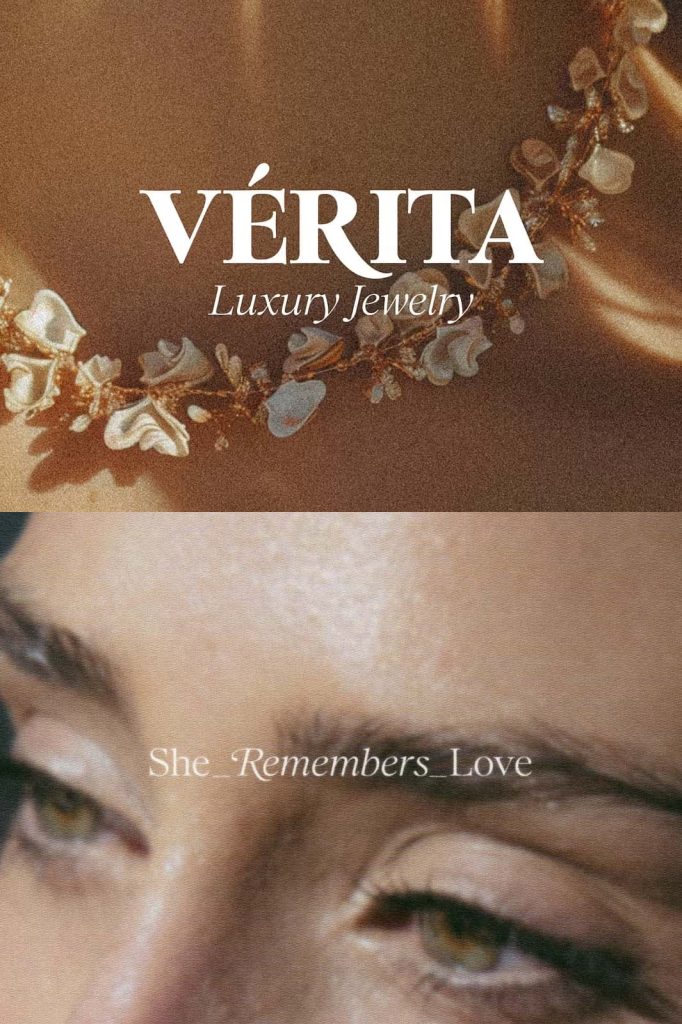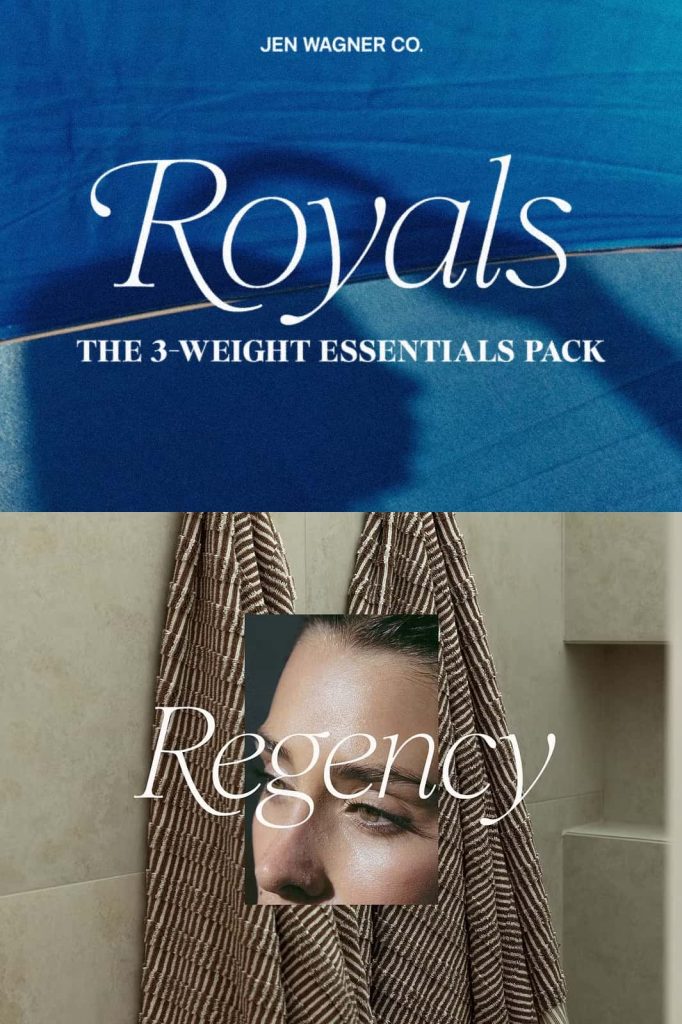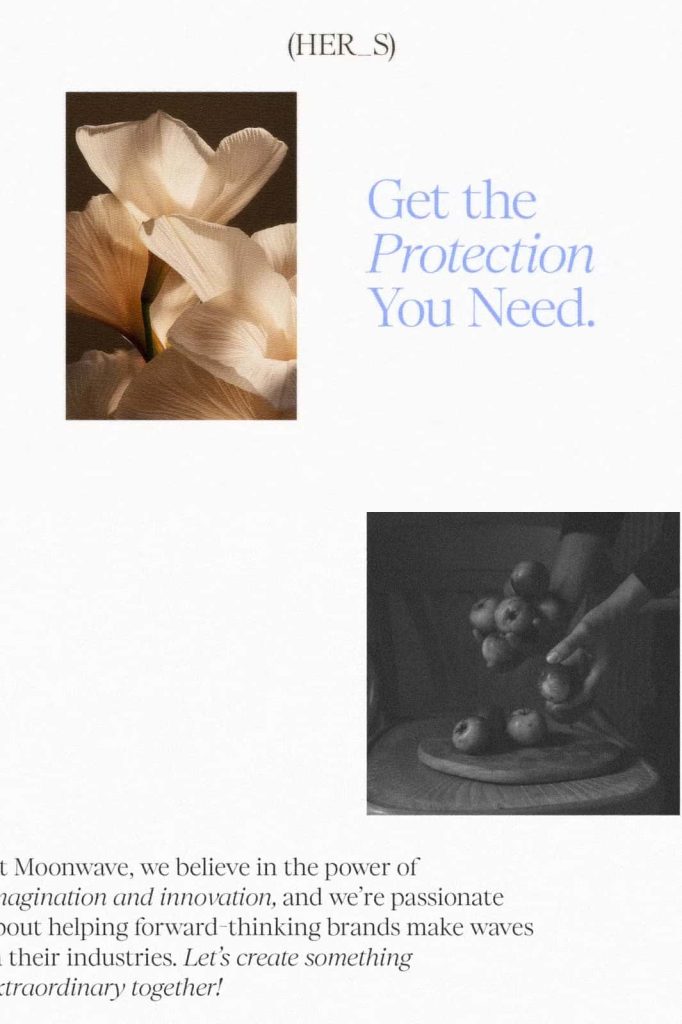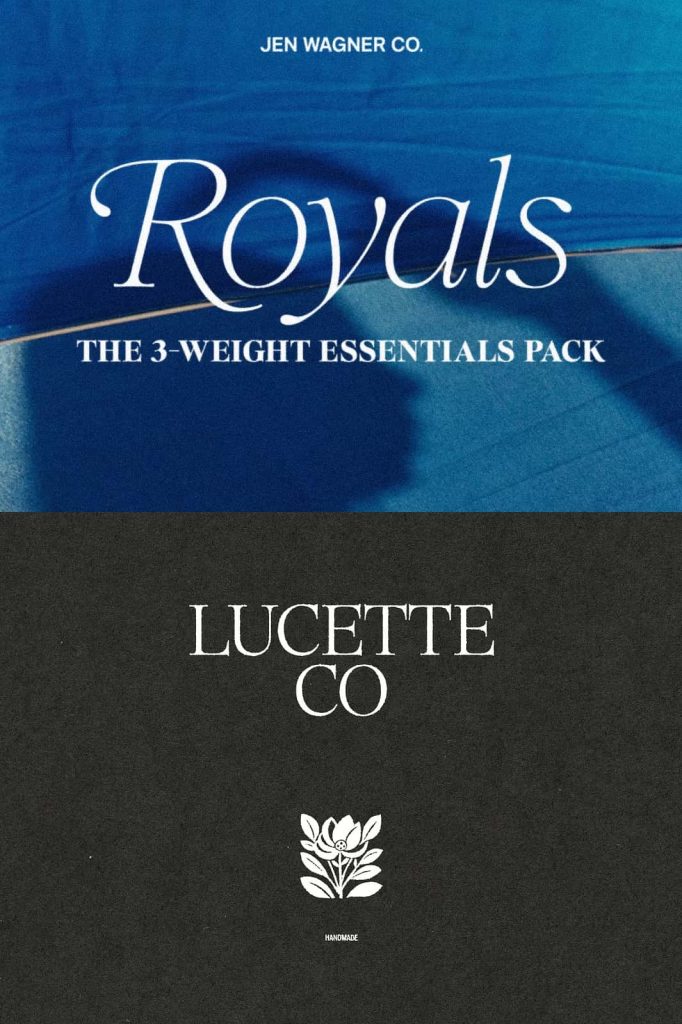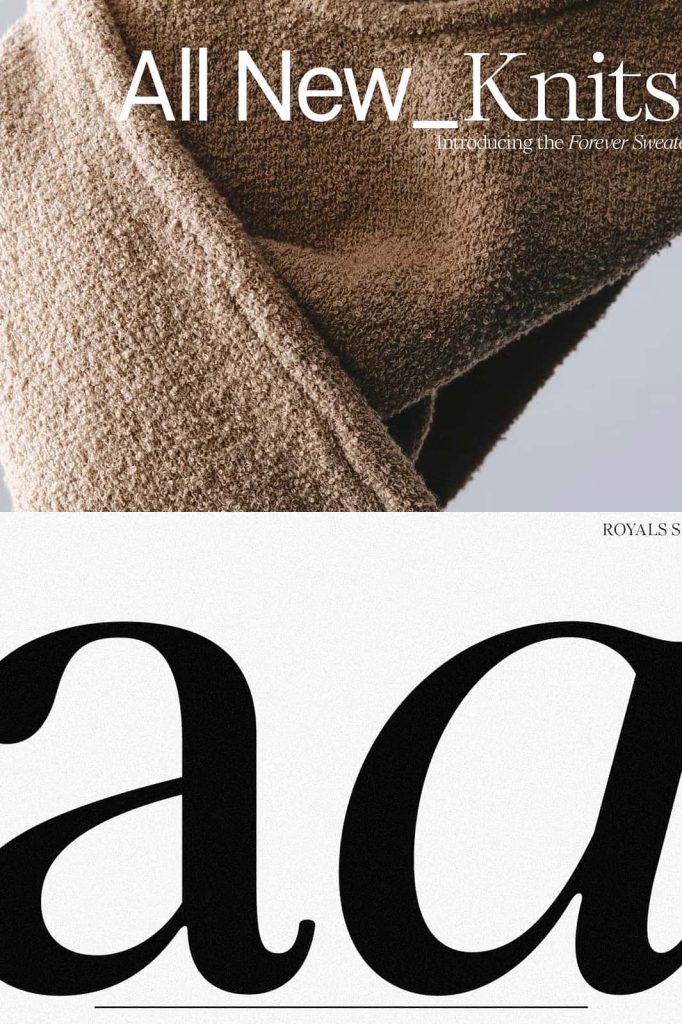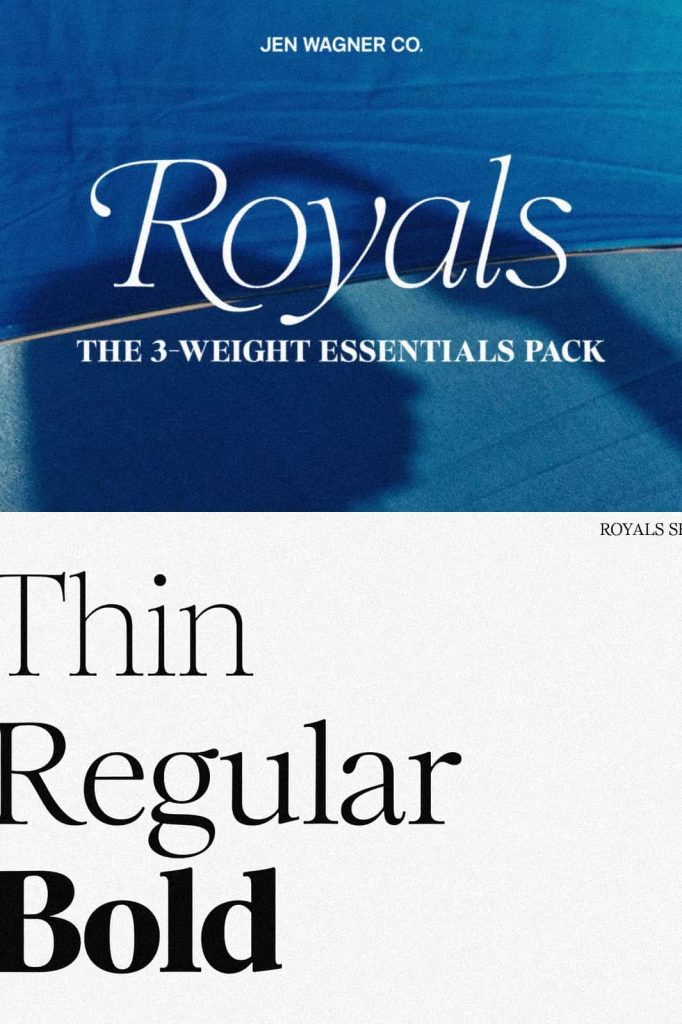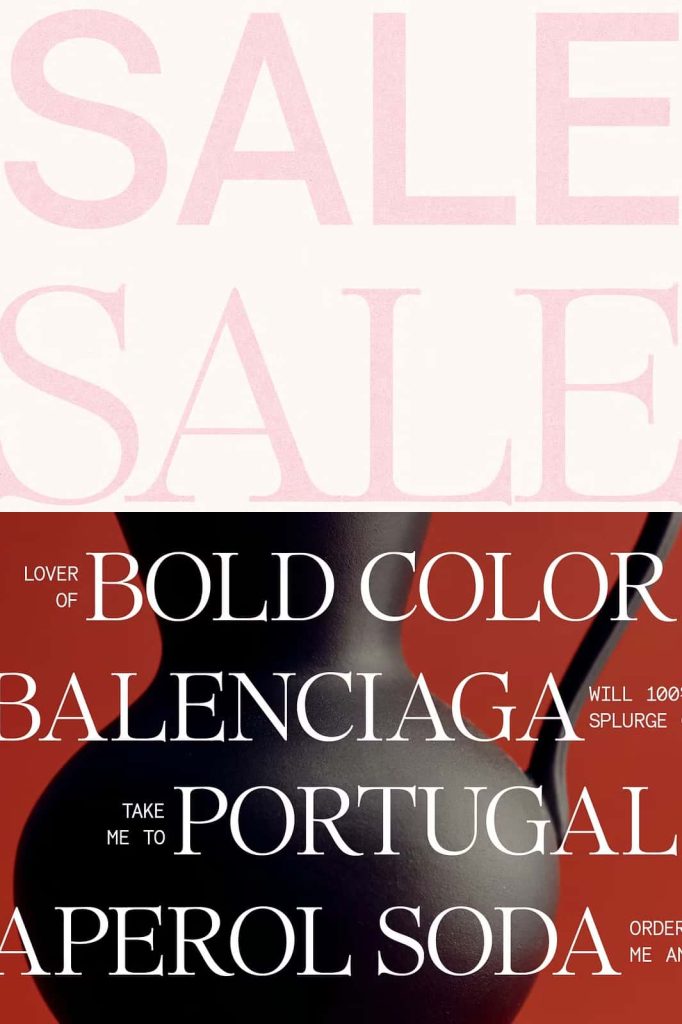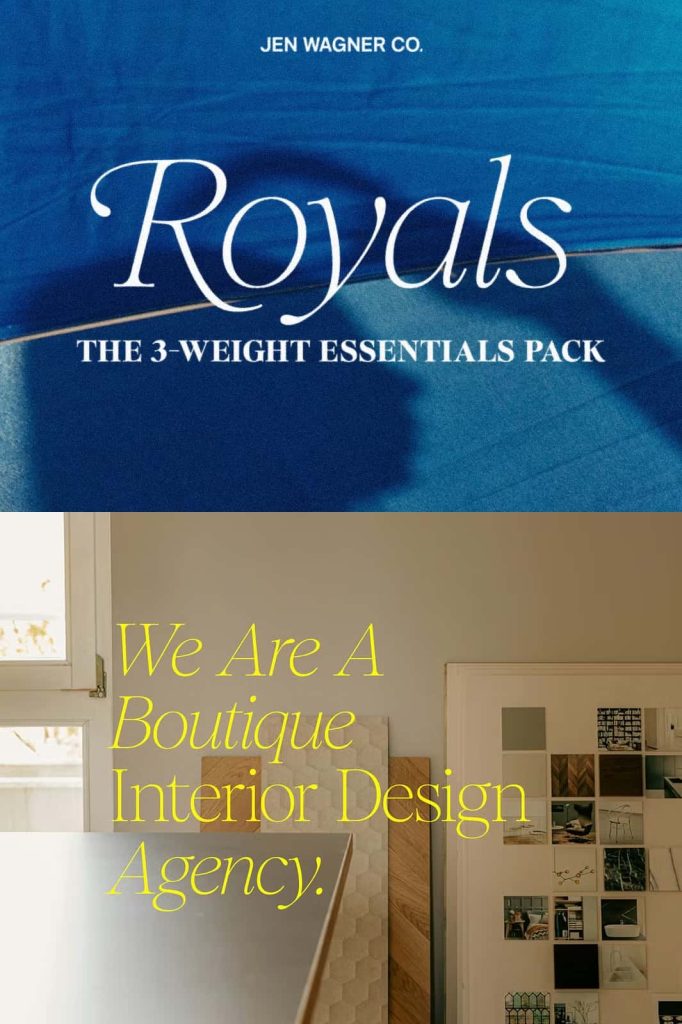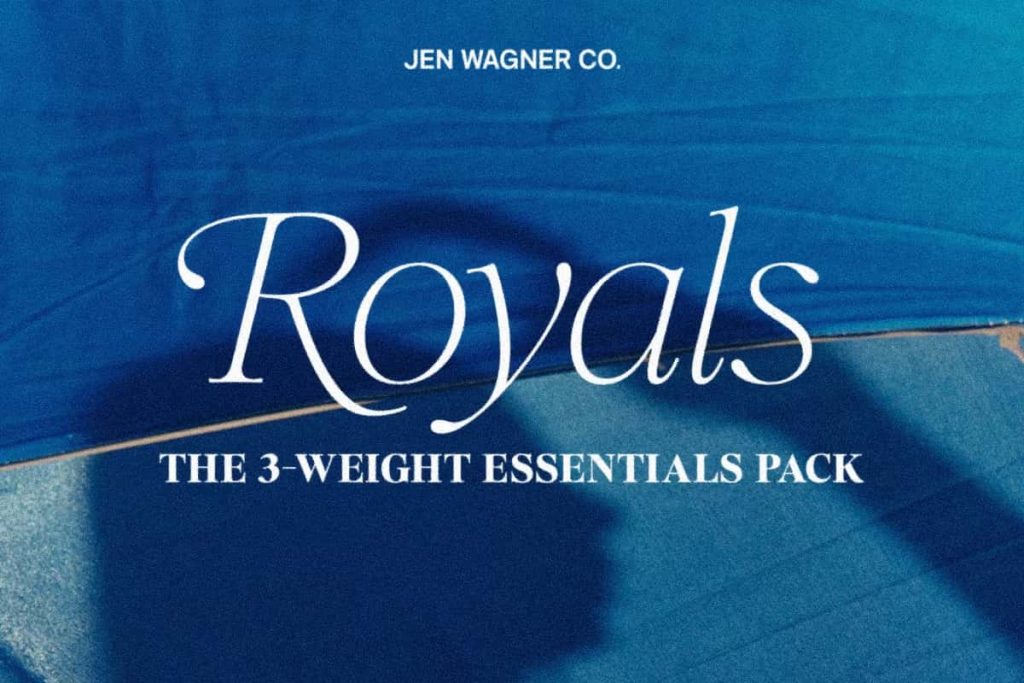
Royals Serif | Essentials Pack
Royals Serif Font Family – A Refined and Versatile Serif Typeface for Luxury Design
Royals Serif is an elegant and sophisticated serif font family designed to bring timeless beauty and professional refinement to modern design projects. Available in Thin, Regular, and Bold weights, this carefully crafted typeface provides designers with the flexibility needed to create stunning visual hierarchies while maintaining a cohesive and polished appearance.
Built to feel regal yet remarkably versatile, Royals Serif combines classic serif traditions with contemporary design sensibilities. Its rounded cap serifs, graceful organic curves, and beautifully balanced italic styles create a luxurious aesthetic that works effortlessly across branding, editorial design, packaging, advertising, and digital media.
Whether you are designing large-scale headlines, impactful typography layouts, premium product packaging, elegant quotes, or high-end brand identities, Royals Serif delivers exceptional readability, sophistication, and visual impact. Its refined character makes it a valuable addition to any designer’s toolkit and a dependable choice for projects that demand elegance and professionalism.
A Classic Serif Typeface with Modern Elegance
Royals Serif draws inspiration from timeless typography while embracing modern design principles. The result is a typeface that feels both traditional and contemporary, allowing it to adapt seamlessly to a wide range of creative applications.
Its carefully balanced proportions create a harmonious appearance that remains highly readable across different sizes and formats. The font’s elegant details add sophistication without becoming overly decorative, making it suitable for projects that require a premium visual identity.
Designers can use Royals Serif to create work that communicates confidence, quality, and style while maintaining a clean and professional presentation. Its timeless appeal ensures that designs remain relevant and visually engaging for years to come.
Three Essential Weights for Maximum Flexibility
Royals Serif Essentials Pack includes three versatile weights that allow designers to create complete and consistent typography systems. Each weight serves a unique purpose while maintaining the signature elegance and refinement of the font family.
The Thin weight offers a delicate and sophisticated appearance, making it ideal for luxury branding, minimalist layouts, fashion editorials, and elegant display typography. Its graceful structure creates a sense of exclusivity and refinement that appeals to premium audiences.
The Regular weight delivers exceptional balance between style and readability. It works beautifully for body text, subheadings, branding materials, and editorial content, providing a polished and professional appearance without overwhelming the design.
The Bold weight creates strong visual impact and authority. It excels in headlines, titles, advertising campaigns, website banners, and branding applications where attention-grabbing typography is essential.
Distinctive Rounded Cap Serifs and Organic Curves
One of the defining characteristics of Royals Serif is its beautifully rounded cap serifs. These subtle design elements soften the overall appearance of the typeface while maintaining the structure and elegance associated with classic serif typography.
The organic curves found throughout the character set create a natural visual flow that enhances readability and aesthetic appeal. These details contribute to the font’s approachable luxury, making it suitable for both contemporary and traditional design projects.
Together, the rounded serifs and flowing curves give Royals Serif a unique personality that distinguishes it from more rigid serif typefaces. This balance of structure and softness helps create designs that feel refined, welcoming, and sophisticated.
Beautiful Italics for Elegant Typography
Royals Serif includes carefully designed italic styles that complement the main typeface while introducing movement and elegance. The soft italics enhance typography compositions by adding emphasis and variation without disrupting visual harmony.
Designers can use italic styles to highlight important information, create contrast, and bring additional sophistication to layouts. Whether featured in editorial content, luxury branding, or quote designs, the italics provide a graceful touch that elevates the overall presentation.
These refined italic forms contribute to the versatility of the font family and allow for greater creative freedom in both print and digital projects.
Perfect for Luxury Branding and Visual Identity
Luxury brands require typography that communicates quality, exclusivity, and attention to detail. Royals Serif excels in this role by offering a premium visual language that instantly enhances brand perception.
For designers seeking a dependable serif typeface that balances classic beauty with contemporary versatility, Royals Serif is an outstanding choice. Its regal character, elegant details, and wide range of applications make it a font family that will quickly become a staple in any professional font collection.